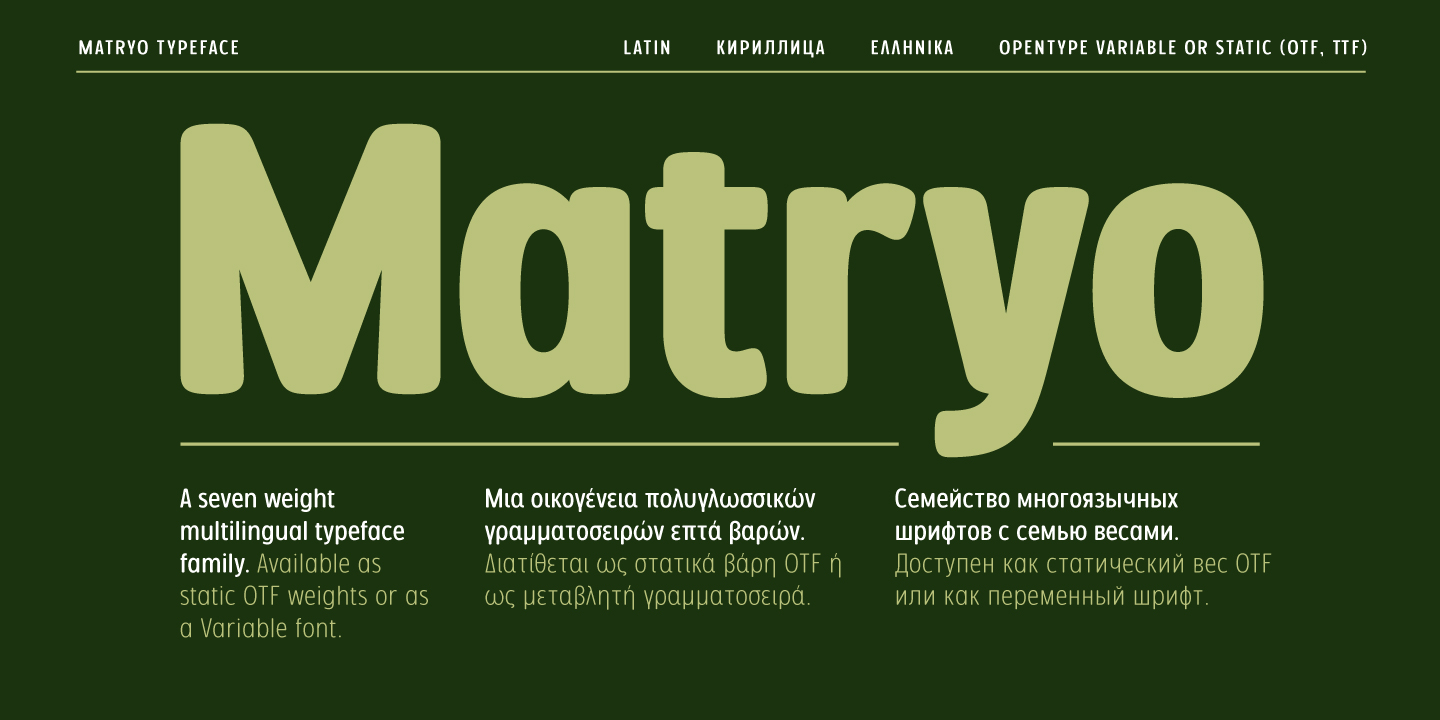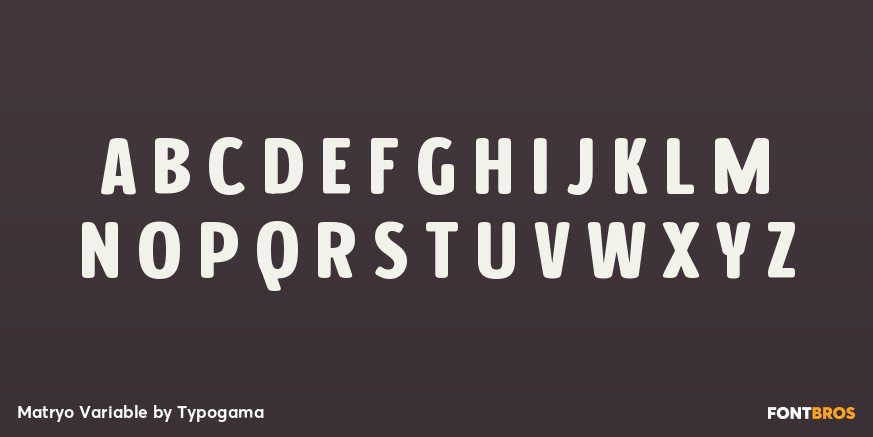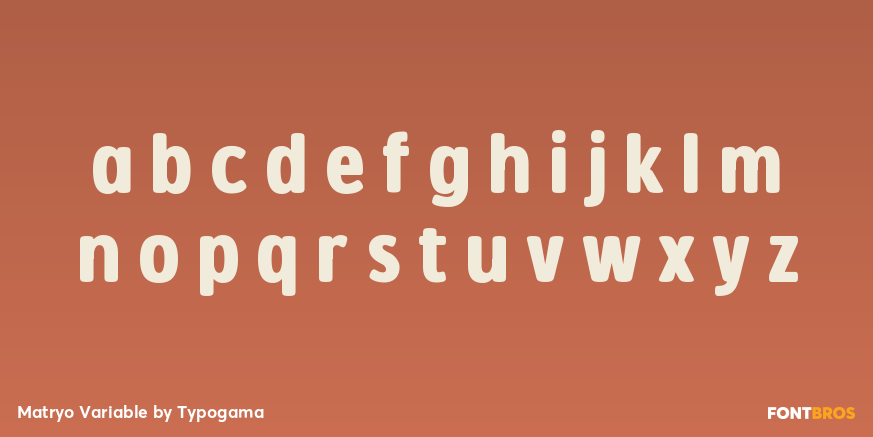
Matryo Variable
Font Family by Typogama
Matryo is a narrow, sans serif typeface family of fourteen typefaces, ranging from Thin to Black with accompanying Italics. With a soft, rounded form stroke and open shapes, it aims to remain clear and legible at all point sizes and can be set either in longer passages or for headlines and logos. Conceived as a multilingual family, its large character set covers most latin, cyrillic and greek based languages with a particular attention given to covering the historical forms for added functionality. Through Opentype features, Matryo equally offers a choice of numeral styles and some ligatures or alternative letters to add further choices for end users.